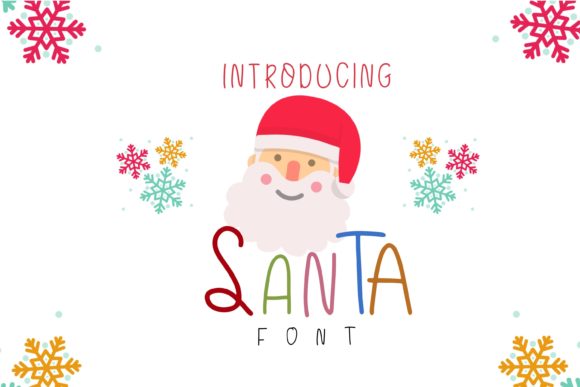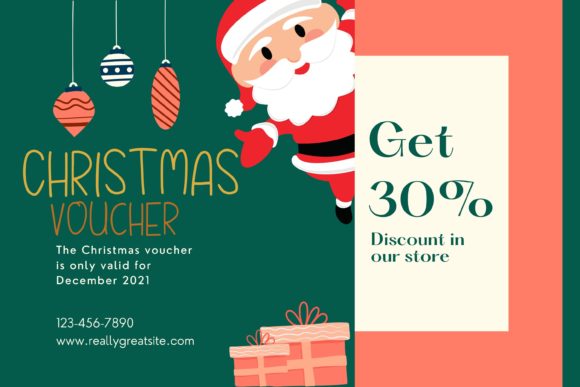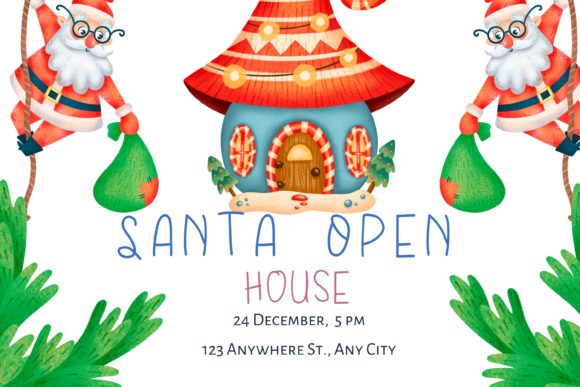
About Santa Font
Santa is a cute and colorful handwritten font that is perfect for the holiday season. It embodies playfulness and authenticity and is the perfect choice for any children’s activity or school project.